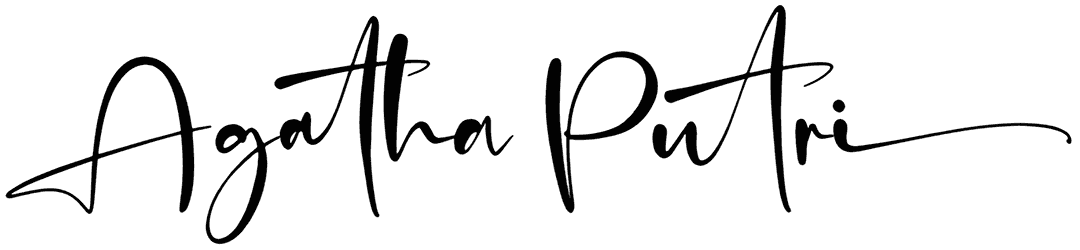
Agatha Putri Font
The Agatha Putri font is a good choice if you want to convey a sense of informality to the people you’re writing to. Even though it’s not readable, this handwritten font with its two styles is perfect for signature motifs, tattoo designs, logotypes, and product packaging.